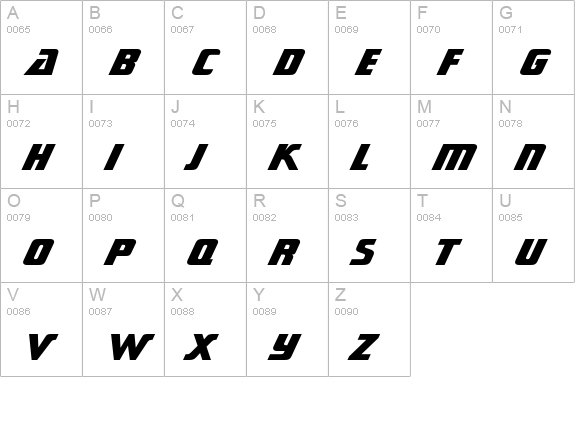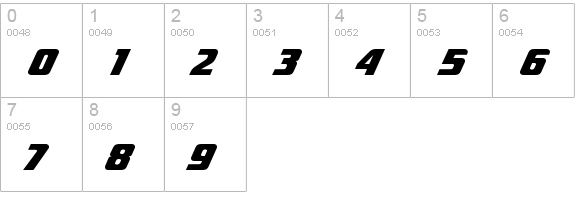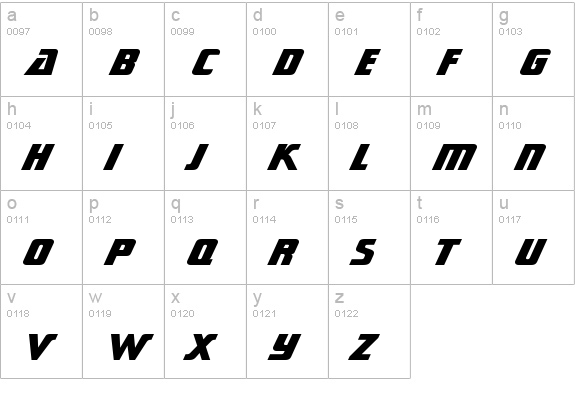
Sonic Cut Thru Heavy is a heavy, high-impact variant in the Sonic typeface family \xE2\x80\x94 well suited to high-impact headlines, posters, and display advertising.
Introducing the dynamic and captivating Sonic Cut Thru Heavy font, a true game-changer in the world of typography. This font pushes boundaries and breaks through barriers with its bold and striking design. Sonic Cut Thru Heavy font is a perfect fusion of modernity and edginess, making it ideal for projects that demand attention and make a lasting impact. Its meticulous attention to detail and innovative design elements ensure that your message will be conveyed with utmost clarity and power. What sets Sonic Cut Thru Heavy font apart is not only its captivating appearance but also its versatility. Whether you're designing a poster, creating a logo, or crafting a headline, this font will effortlessly elevate your project to new heights. But the best part is, Sonic Cut Thru Heavy font is available for free download exclusively at FontsMarket.com. Yes, you read that right - absolutely free! Now, you can unleash your creativity without any constraints or limitations, all thanks to this incredible font. So, what are you waiting for? Don't miss out on the opportunity to add Sonic Cut Thru Heavy font to your collection. Download it now from FontsMarket.com and embark on a journey of limitless possibilities in the realm of typography.